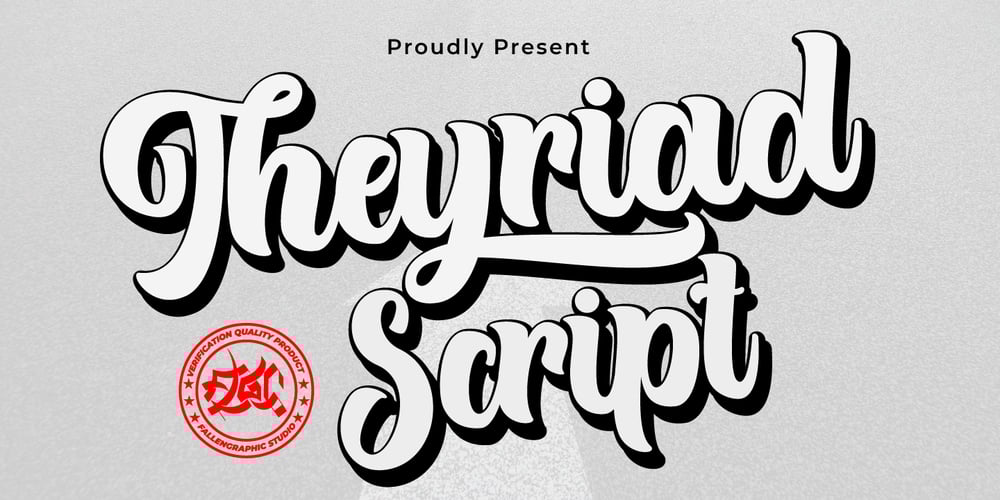
Theyriad Script Font Family was designed by Vava Aryanto and published by FallenGraphic. Theyriad Script contains 1 styles and family package options. Theyriad Script is the great choice for watermarks on photography, logo designs, quotes, album covers, business cards, and many other design projects. Theyriad Script is here to elevate your work to the highest level. Features: -Accents (Multilingual Characters) -PUA encoded -Numerals and Punctuations (OpenType Standard) -Many alternates